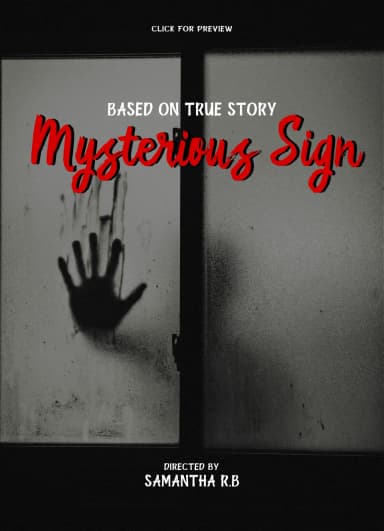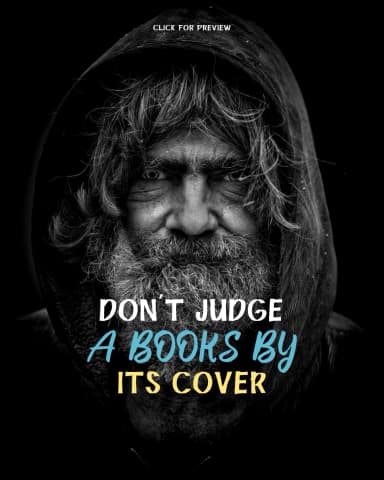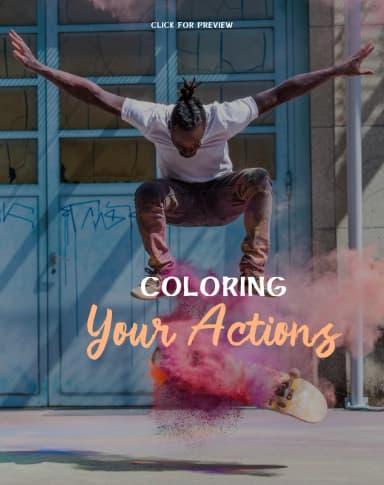
1 / 9About Rough Sketch Font
Rough Sketch Font by JavaPep is a dynamic handwritten duo that merges organic, sketchy brushwork with a refined contemporary sans serif. This unique pairing offers designers the authentic expressive quality of hand-drawn letterforms alongside a versatile, highly readable complement for flexible typography arrangements across different mediums, layouts, and design contexts. The font excels across diverse creative applications. Whether you're crafting wedding invitation suites with personalized calligraphic touches and custom flourishes, designing hand-lettered packaging for artisanal goods and craft brands, developing botanical illustration labels and product tags, or creating custom greeting card designs and stationery, Rough Sketch adapts beautifully to your creative vision. The brushstroke component delivers authentic character, warmth, and texture, while the accompanying sans serif ensures clarity and readability where needed, making this duo particularly valuable for projects requiring both expressive personality and legibility working together seamlessly. Use these fonts independently or as a cohesive pair, depending on your project's specific needs and overall aesthetic direction. The combination opens possibilities for eye-catching title treatments, rustic wooden signage aesthetics, branded product labels and packaging design, and marketing materials that feel both distinctly handcrafted and professionally polished. Whether your creative direction leans toward vintage inspiration or contemporary minimalism, this duo bridges the gap between artisanal charm and polished sophistication with distinctive character. Get the Rough Sketch Font pair on Creative Fabrica and bring textured, human-made aesthetics to your design work.
- Elegant, Flowing, Rough Sketch
Rough Sketch Font is a script font that shines as a display or heading face. Pair it with a clean sans-serif or serif font for body text β the contrast creates a clear hierarchy while the two styles stay balanced and easy to read.
Rough Sketch Font
by JavaPep